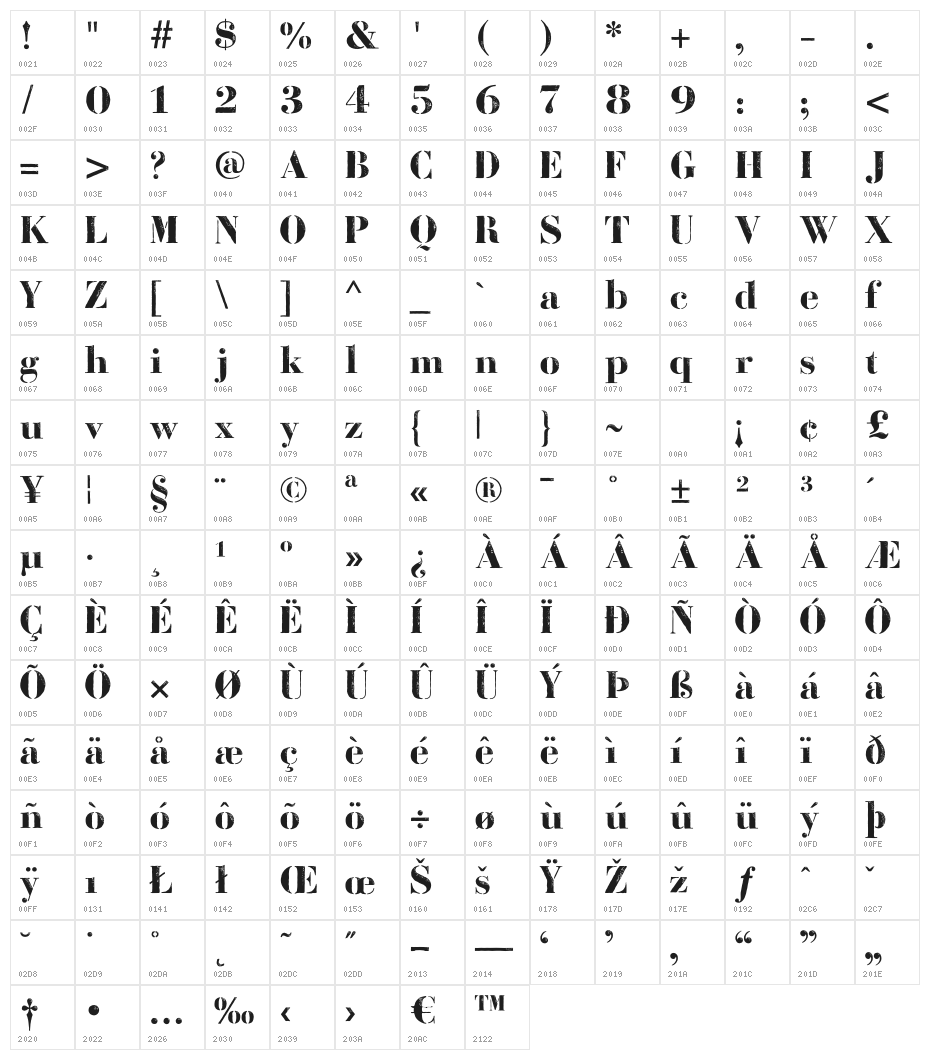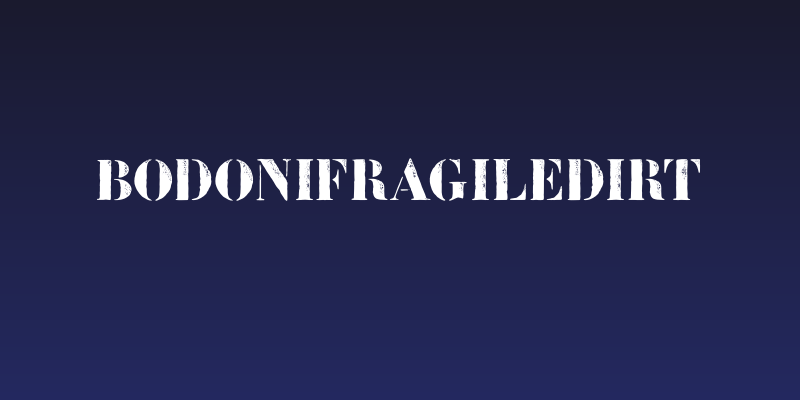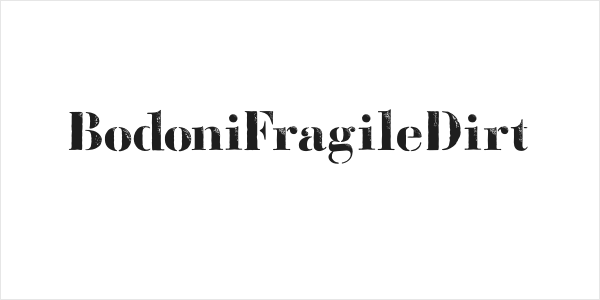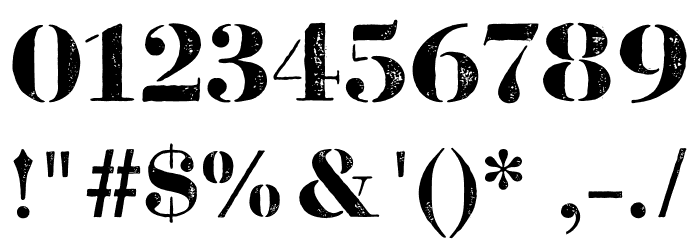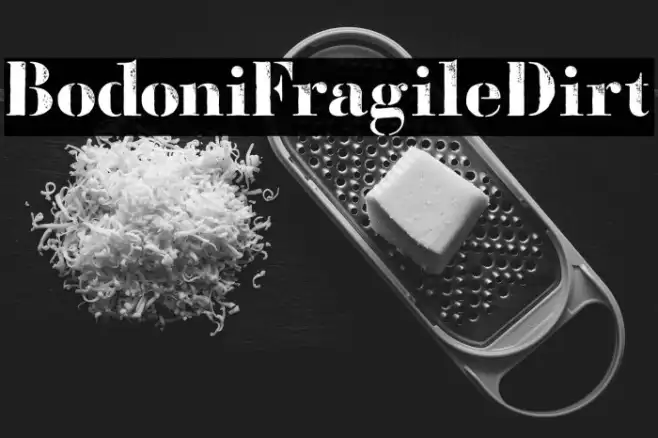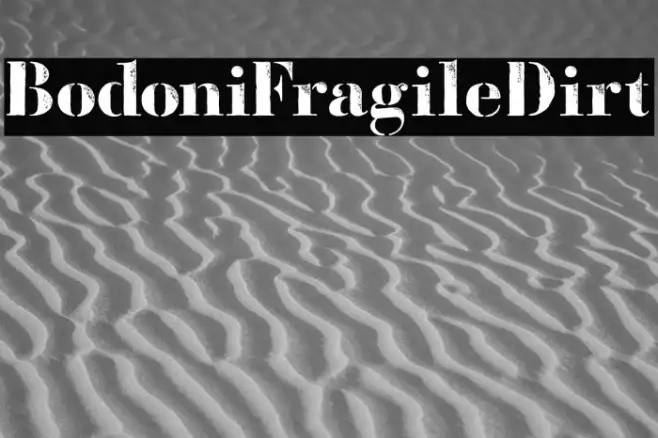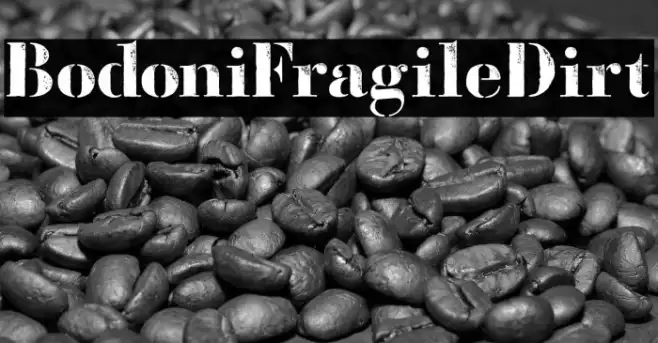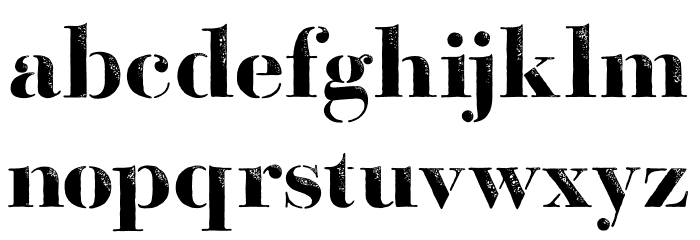
BodoniFragileDirt Font
BodoniFragileDirt Description
This font features a distressed, textured appearance that gives it a vintage and worn look. The characters are bold with high contrast between thick and thin strokes, typical of a classic serif style. The texture adds a unique, grunge-like effect, making it stand out for creative projects. The uppercase and lowercase letters maintain a traditional serif structure, while the numbers and special characters are equally detailed, enhancing the overall aesthetic. This font is ideal for projects that require a touch of elegance with a rustic twist.
| Proposed Projects | Ideal for vintage posters, album covers, branding for rustic-themed products, and creative editorial designs. |